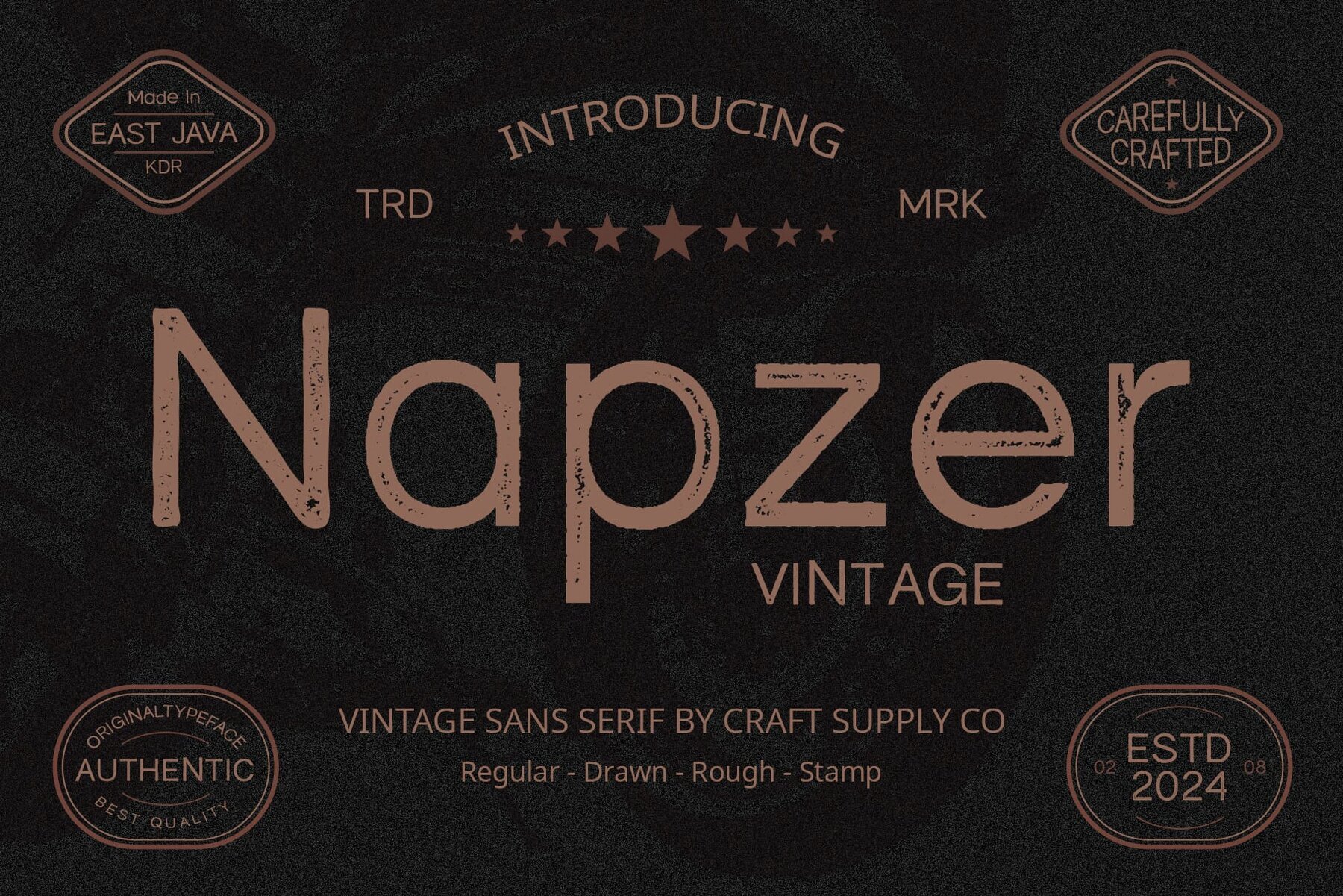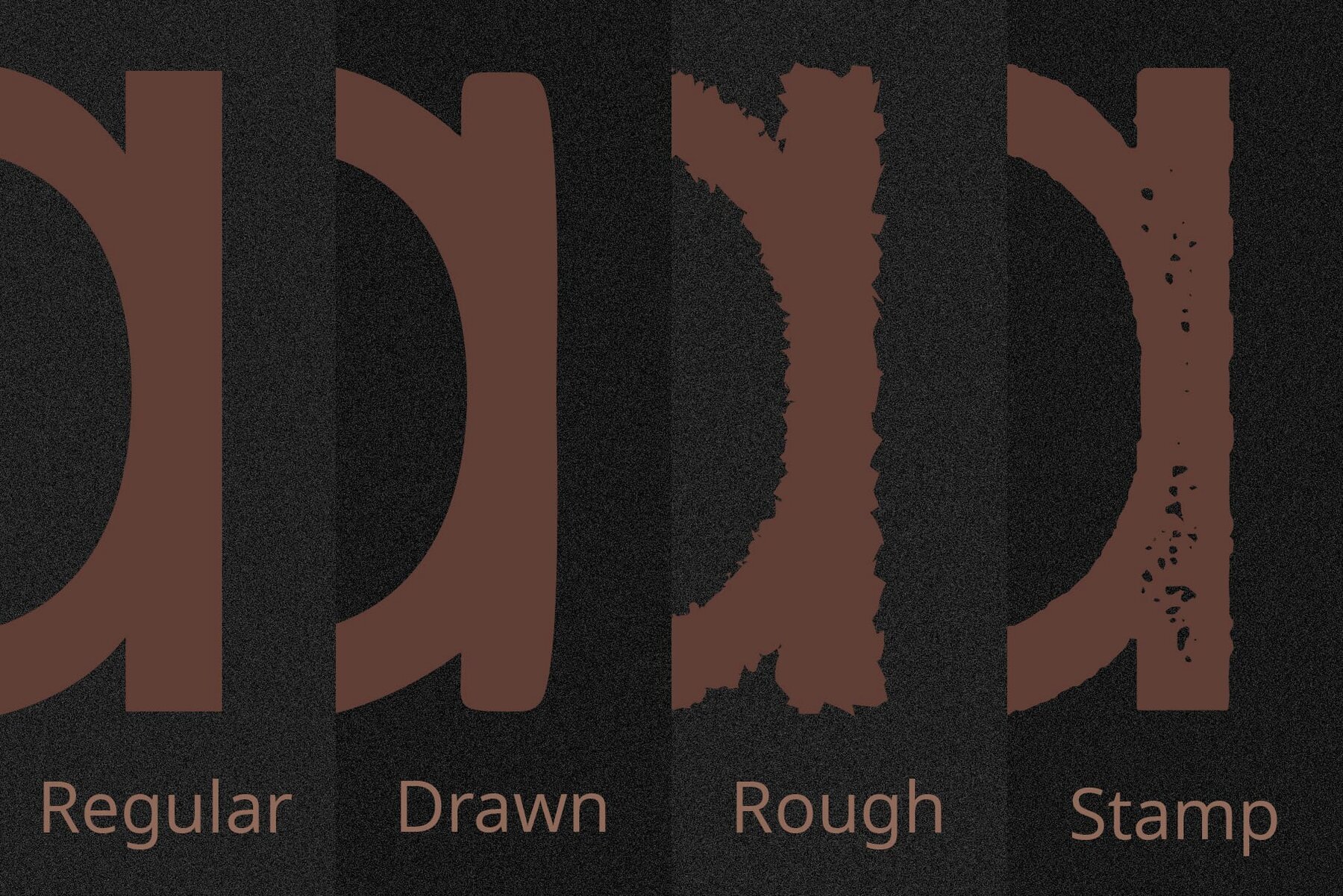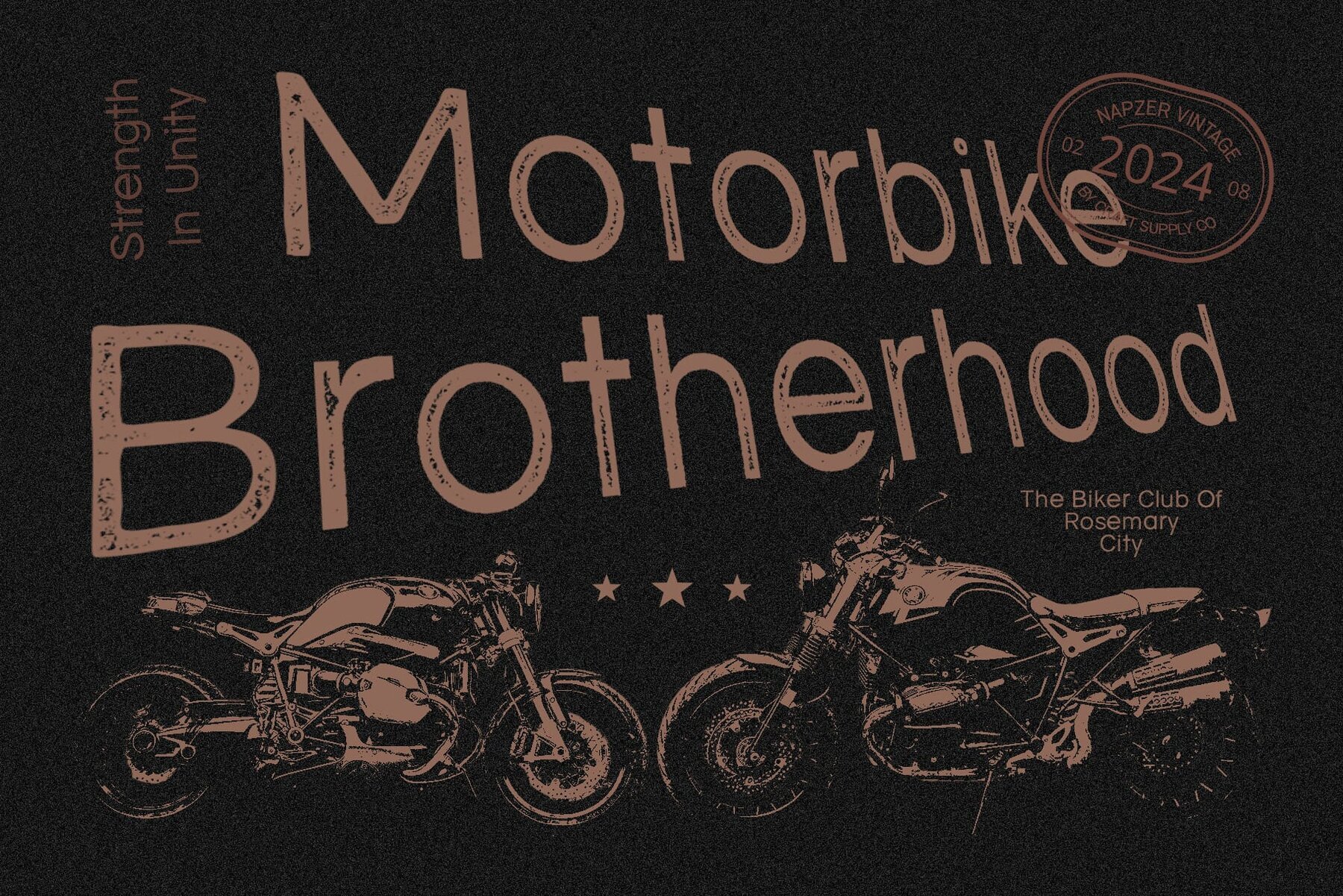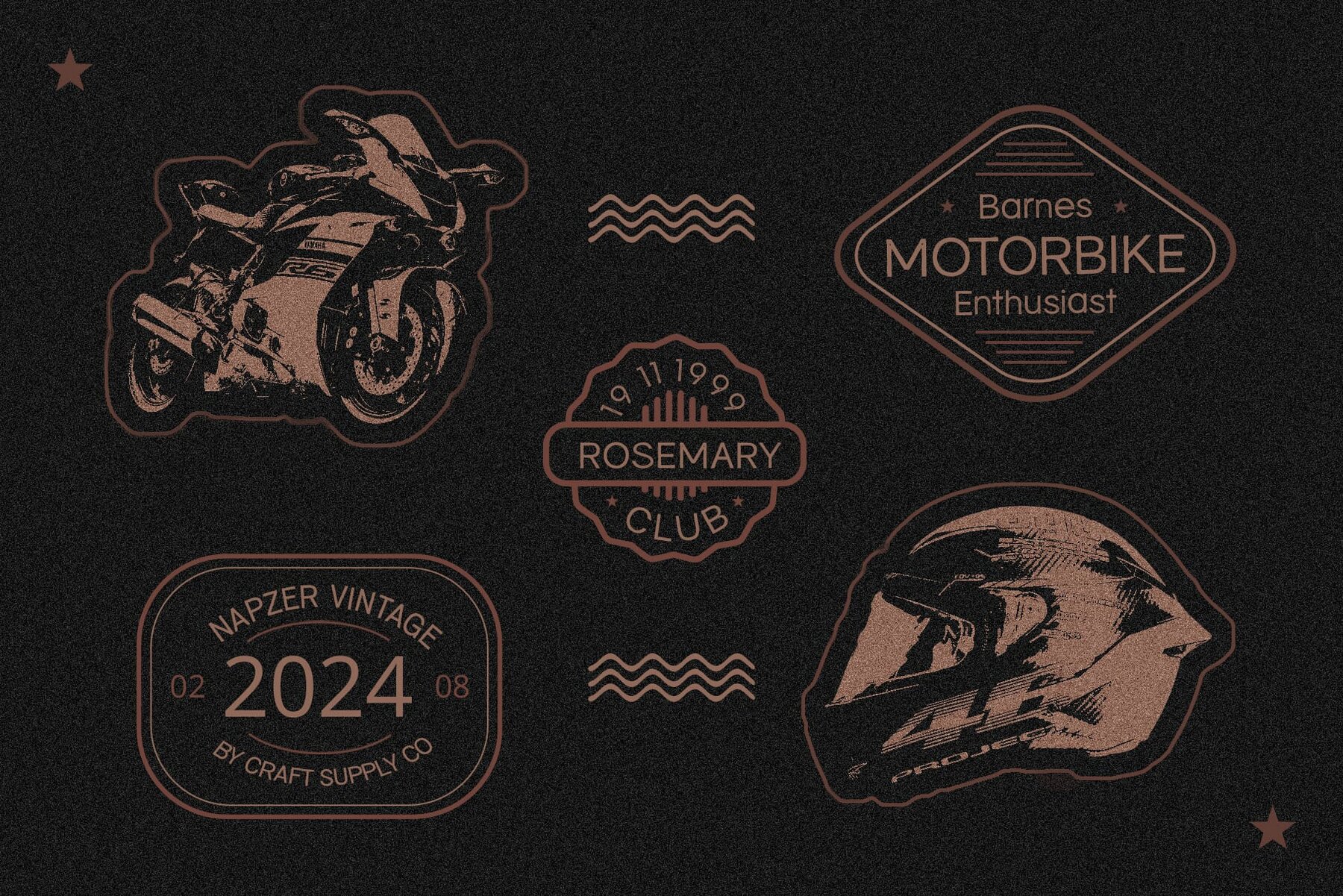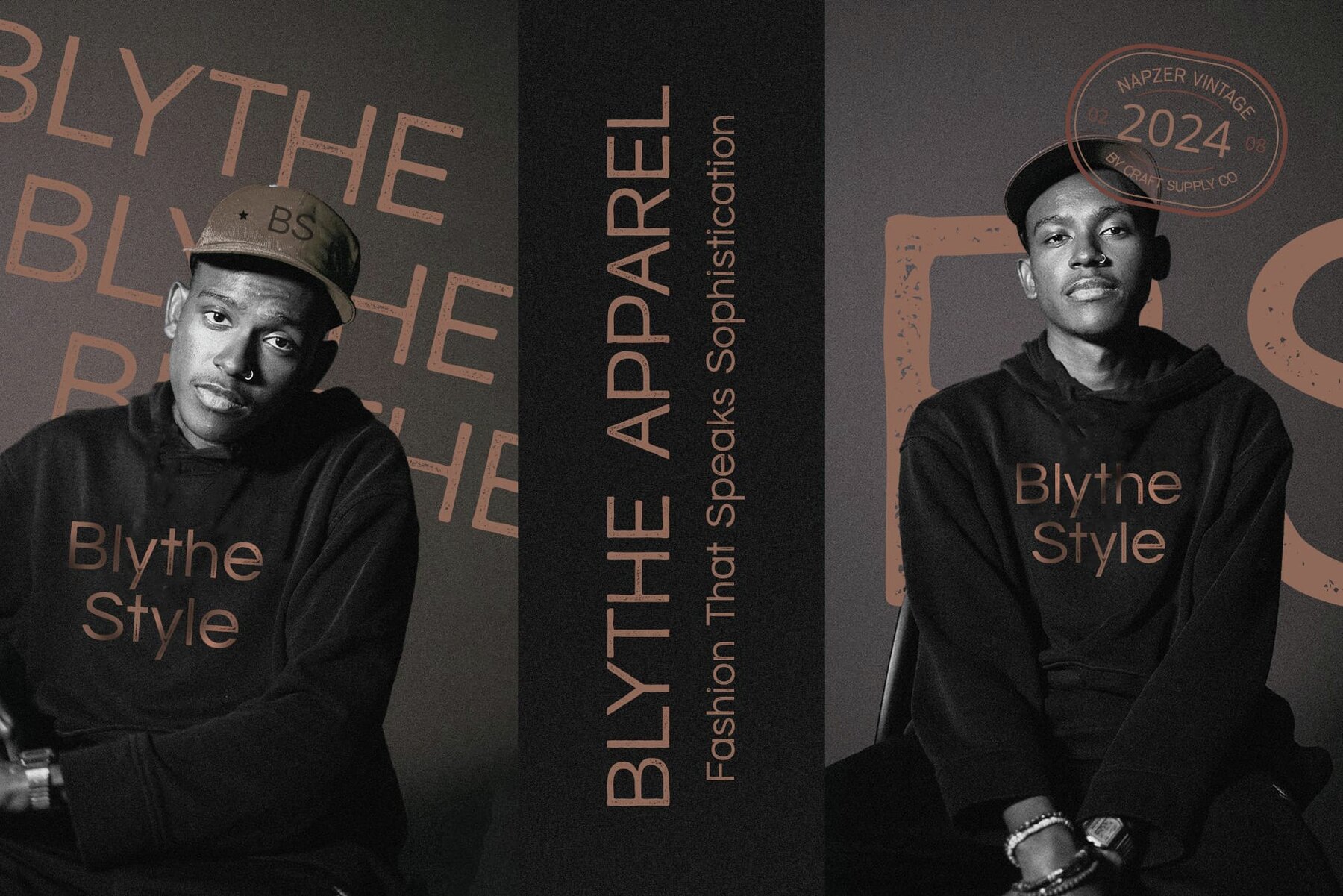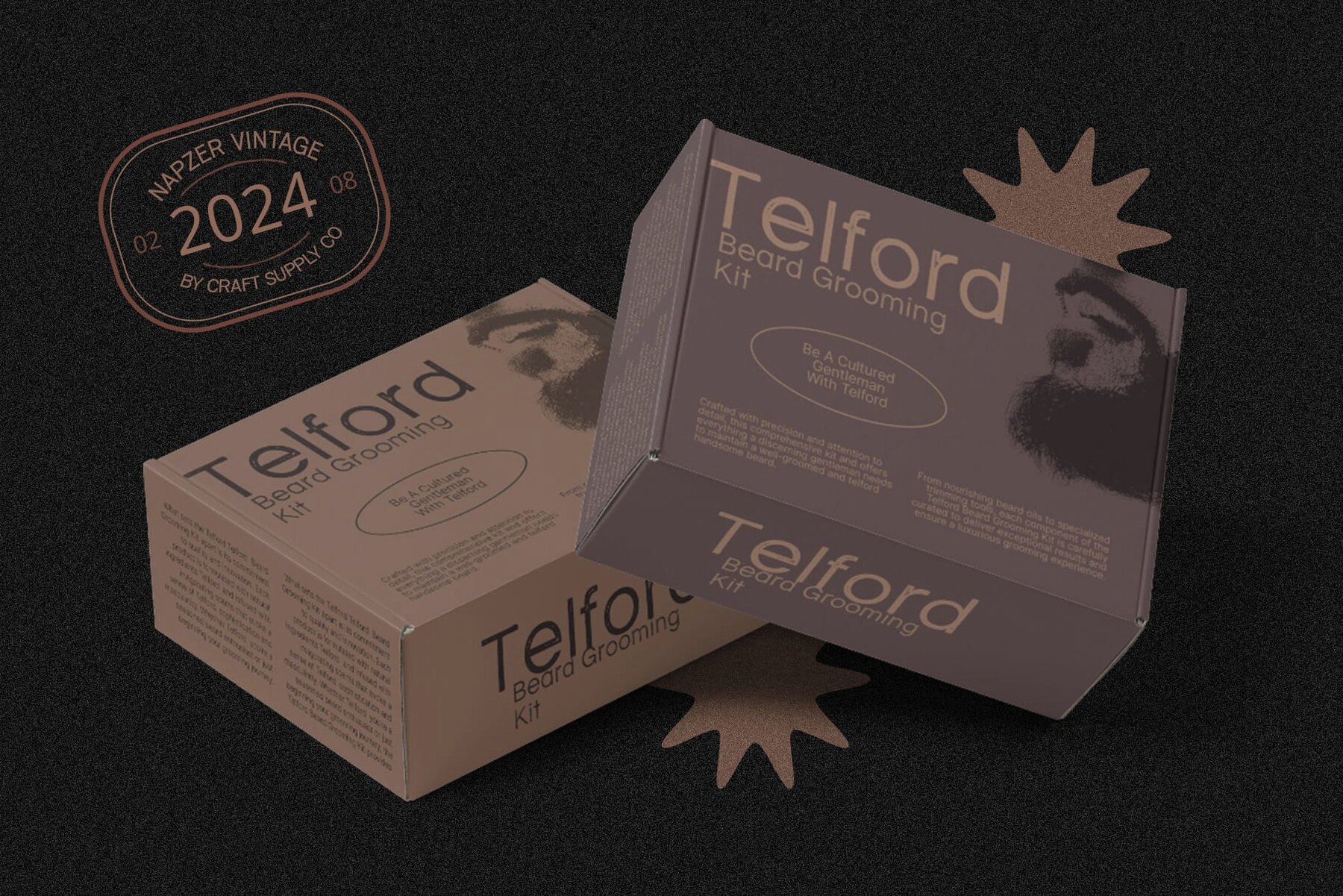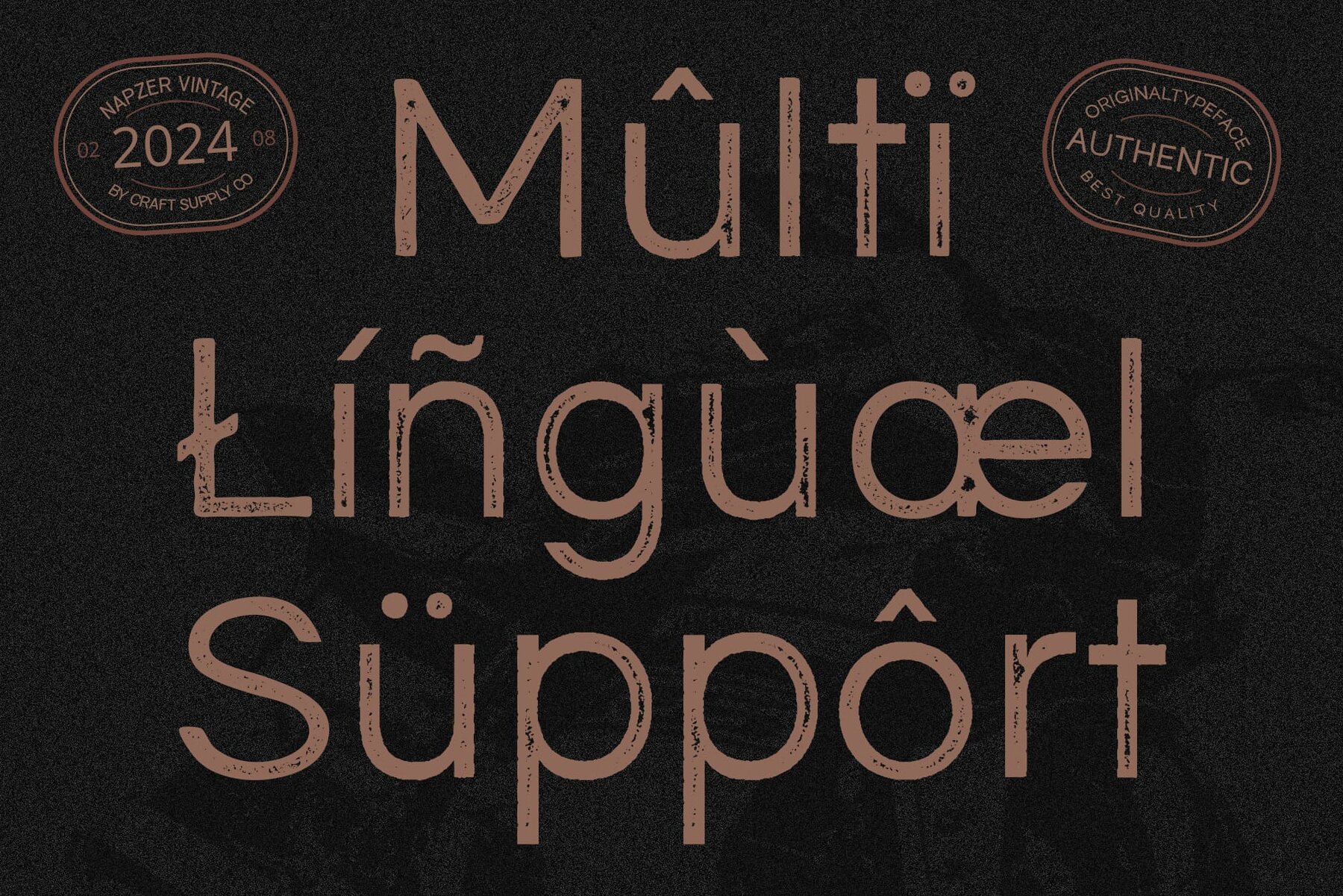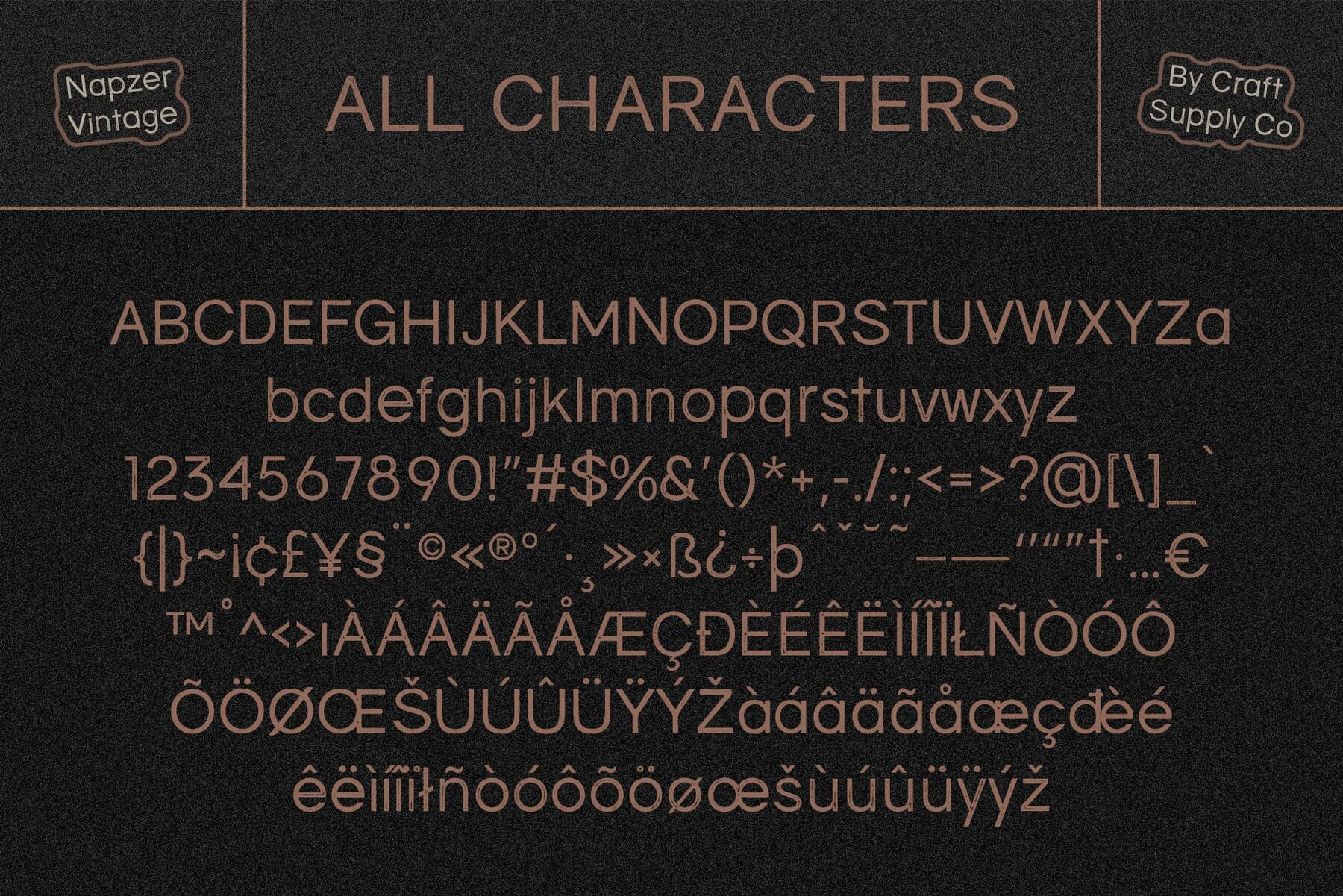
Napzer Vintage Font
Napzer Vintage is a low contrast sans serif typeface designed to offer a cohesive and balanced look across all characters. With a unique blend of vintage flair and contemporary design, it provides the perfect solution for those seeking a touch of nostalgia in their work. No specialized software is required to utilize this typeface. If you have any questions or require assistance, please feel free to contact us. We value your support and look forward to seeing your creative projects shine!Napzer Vintage: Retro-Inspired Sans Serif with a Grunge Touch